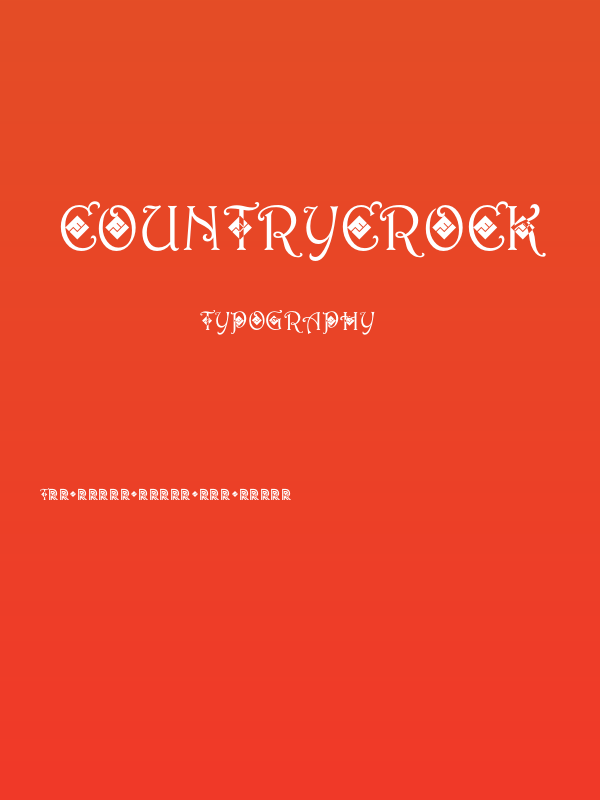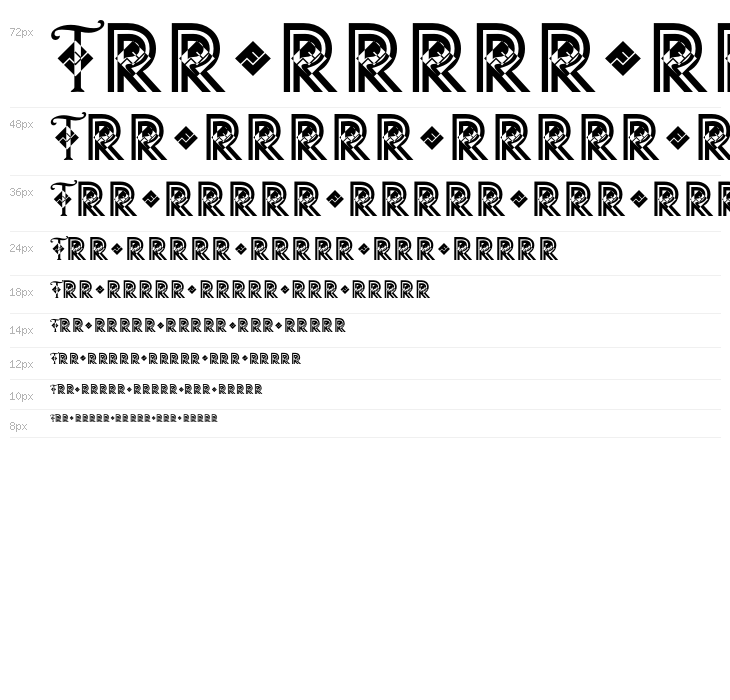
CountryCrock Font
CountryCrock Description
This font features a decorative and intricate design, characterized by its ornate and stylized letterforms. The uppercase letters exhibit a unique blend of curves and sharp angles, with embellishments that give it a distinct, artistic flair. The lowercase letters maintain this decorative style, offering a cohesive look across the alphabet. The font includes a variety of special characters, each designed with the same attention to detail. Its bold presence and high contrast between thick and thin strokes make it suitable for eye-catching designs.
| Proposed Projects | Ideal for branding, logo design, posters, and any project requiring a bold, artistic touch. |